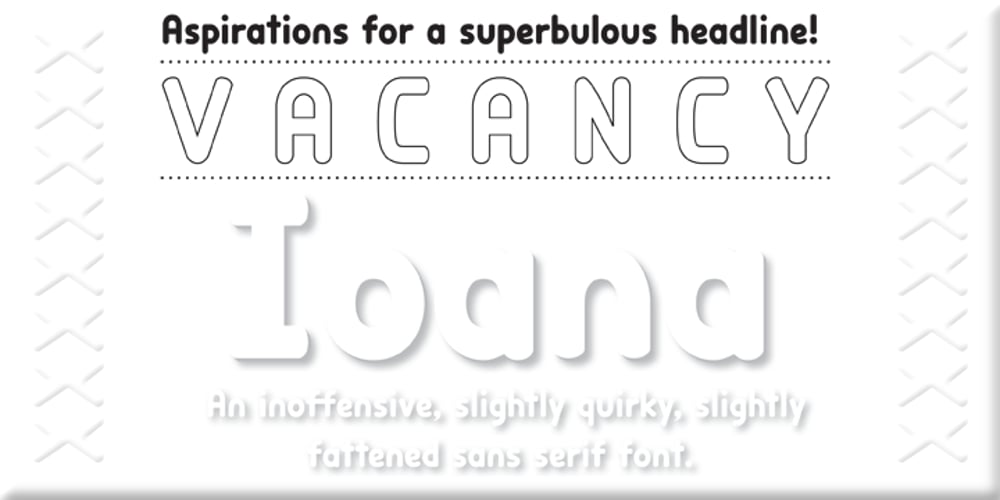
Ioana Font Family was designed by Paul Smith and published by Octopi. Ioana contains 2 styles and family package options. Ioana is an inoffensive, slightly quirky, slightly fattened sans serif font. It has a full character set as well as ligatures, small caps, superiors, inferiors, numerators, denominators and auto-fractions. Ioana came about as a direct result of 3 previous, private commissions that were all based on an artists hand-writing. For Ioana, I wanted a more regimented (but not boring) sans serif that could be used for headlines, posters and flyers with larger body text. Ioana Lighter is an inoffensive, slightly quirky, slightly lighter sans serif font. It is the lighter weight of Ioana and has a full character set as well as ligatures, small caps, superiors, inferiors, numerators, denominators, old style figures and auto-fractions. These OpenType fonts have support for CE languages and I hope you like it.